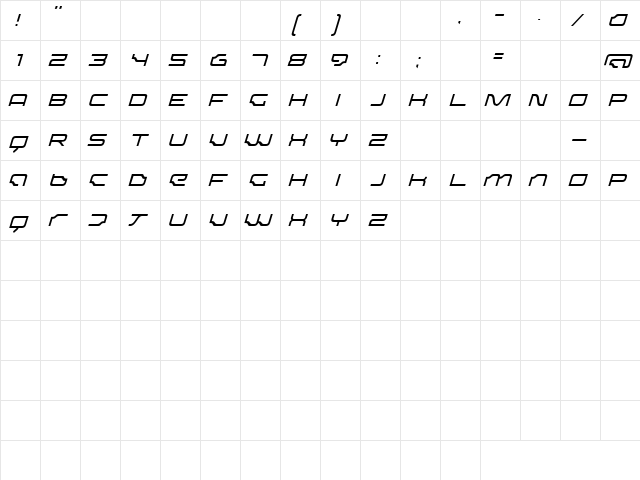
Dominator ThinItalic Font Preview
Dominator ThinItalic
Design Context for Dominator Typeface
Dominator is a composed and adaptable typeface that performs quietly and consistently across a wide range of design contexts. The slanted form adds forward momentum and visual energy. The delicate stroke weight brings airiness and refinement to layouts.
Pro Tip: Try Dominator for annotation and caption copy alongside an upright companion — the contrast in angle creates a dynamic but ordered typographic system.